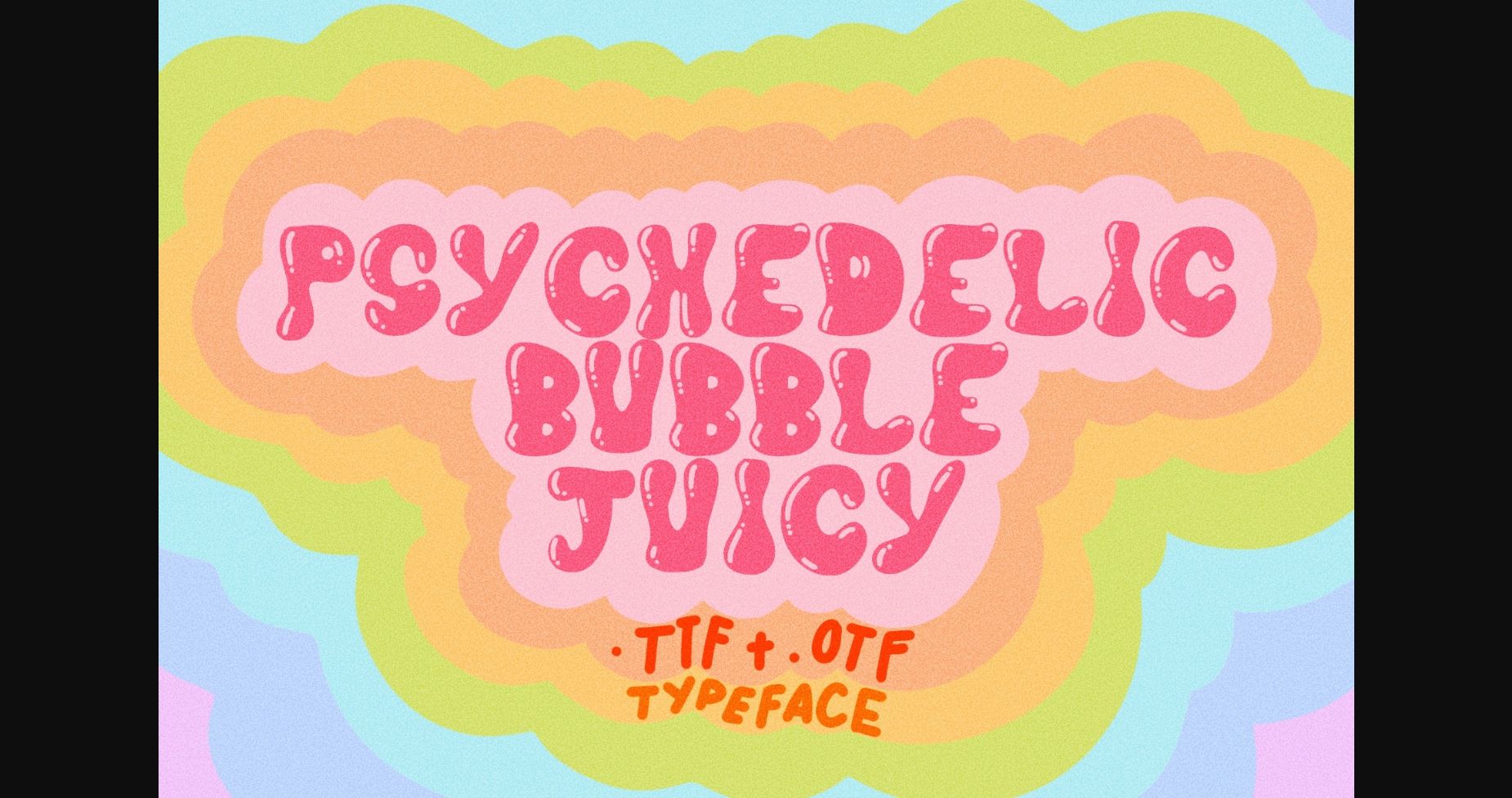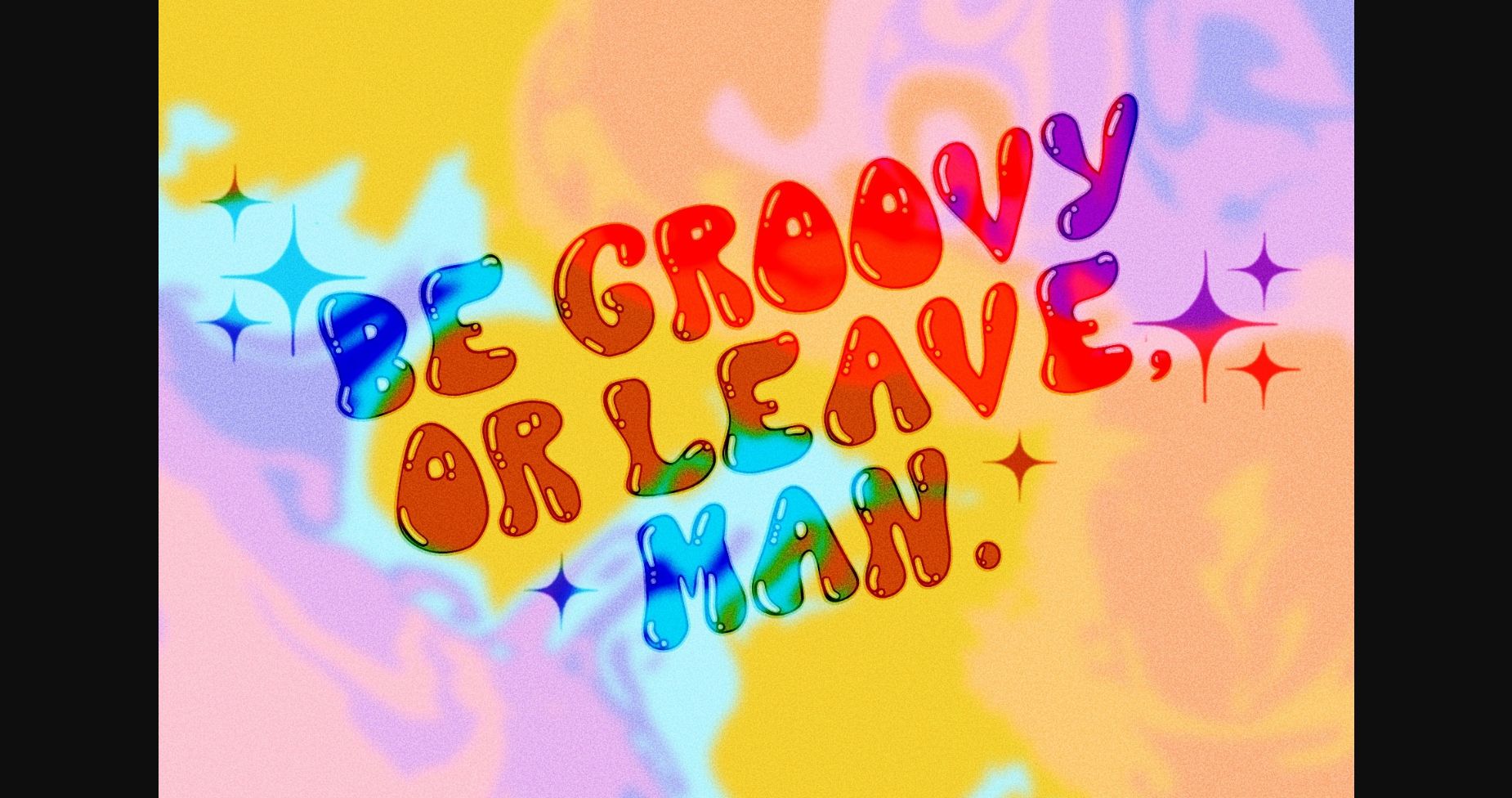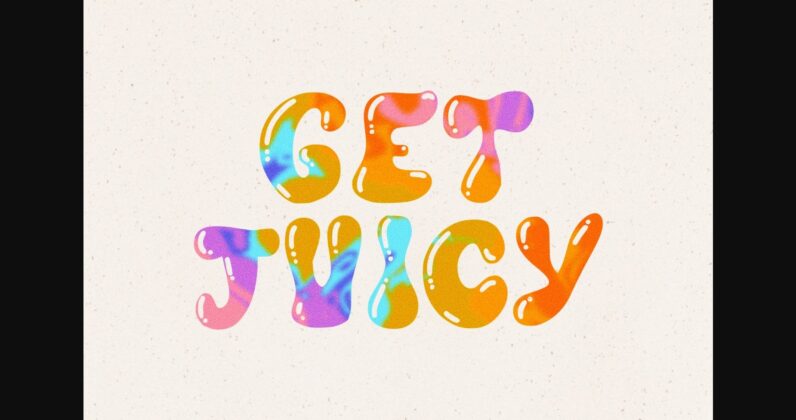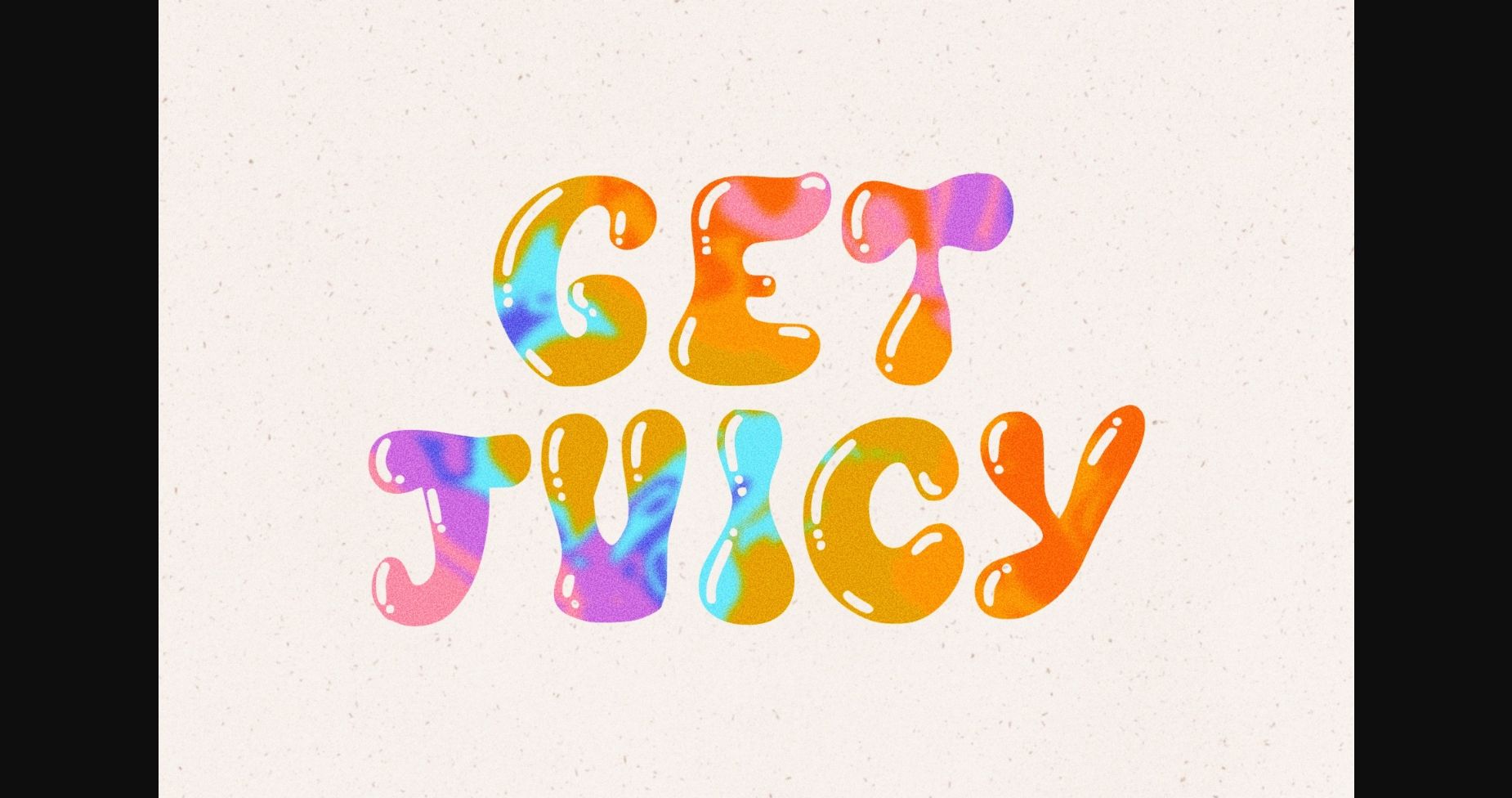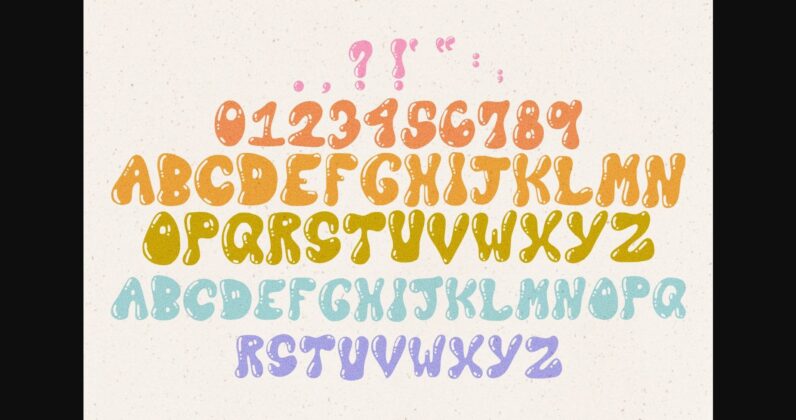
About Psychedelic Bubble Juicy Font
Psychedelic Bubble Juicy is a retro sans-serif font that is full of character and personality, with its bold and unconventional letterforms. The playful variations in stroke weight and the eccentric serifs create a sense of quirkiness and individuality, making it ideal for designs that require a unique and distinctive look. Perfect for logos, branding, and advertising.